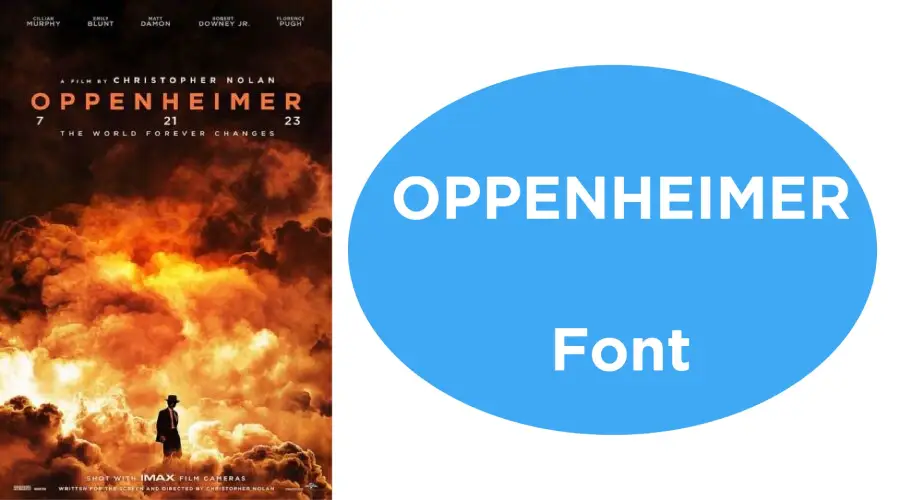
Welcome! Today we will introduce you to the Oppenheimer font. But first, what is Oppenheimer? Oppenheimer is a 2023 biographical drama film that tells the story of J. Robert Oppenheimer. He is a scientist who led the Manhattan Project. The movie poster uses a visually striking and eye-catchy logo that is very suited for the logo. If you want to know what font did they use to create the logo, it is Gotham Bold font. Now let’s talk more about this font and its free alternatives.
What Font Did They Use For Oppenheimer Logo?
Oppenheimer font is a custom typeface created for the movie logo. It is based on Gotham Bold, a geometric sans-serif font designed by Tobias Frere-Jones in 2000. Gotham Bold is a versatile font for headlines, logos, posters, and more. It has a clean and elegant appearance that conveys professionalism and sophistication.
Oppenheimer, however, is not the same as Gotham Bold. It has some subtle modifications that make it unique and distinctive. For example, the spaces in the logo are more than double what they are in normal Gotham font. They modified it slightly with many spaces.
Gotham Bold font is a very effective choice for the movie logo, as it reflects J. Robert Oppenheimer’s personality and character. It is bold and modern, showing his intelligence and innovation. The font is also geometric and symmetrical, which suggests precision and logic. The font is also slightly modified and unique, which indicates his creativity and originality.
Alternative Free Fonts For Oppenheimer
If you want to use the Oppenheimer font for your projects, you might wonder where you can get the Gotham Font Family. Unfortunately, the font is not available for public use, as it is a commercial font owned by Hoefler & Co. However, there are some free alternatives you can use instead. These are:
Metropolis
Metropolis is a free font inspired by Gotham. It has a similar geometric structure and proportions, but minor details differences. For example, Metropolis has sharper corners and more angular terminals than Gotham. Metropolis also comes in 18 styles, ranging from thin to black, which gives you more options to choose from.
Argentum Novus
Argentum Novus is another free font that resembles Gotham. It has a more rounded and smooth appearance than Metropolis, which makes it more suitable for softer and friendlier designs. Argentum Novus also has 10 styles, including italic versions, which add more variety and flexibility to your typography.